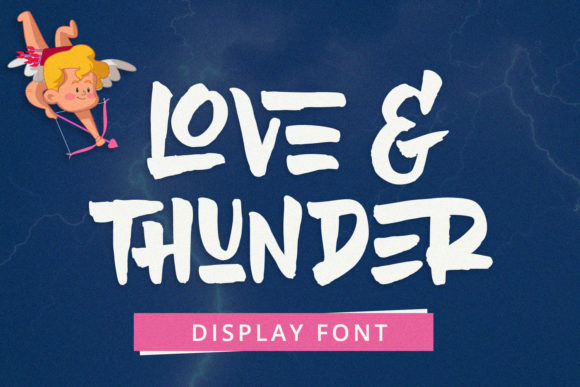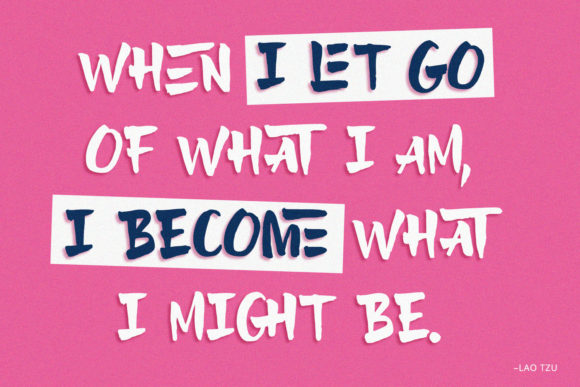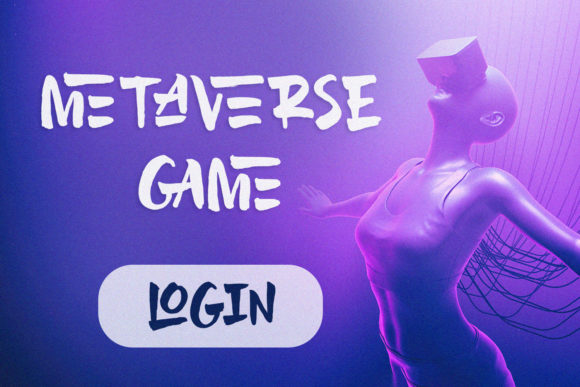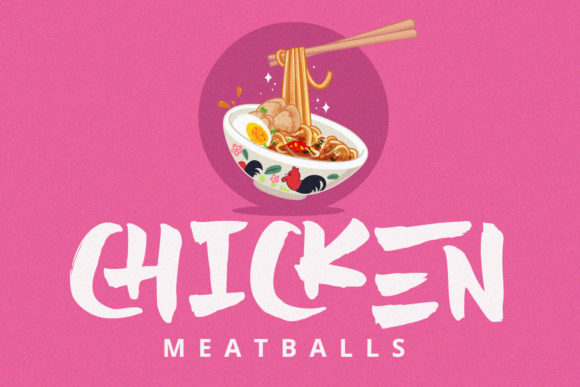
Love & Thunder Font: A Bold Display Font for Playful Logo Design
About the Love & Thunder Font
Make a bold statement with Love & Thunder Font, a powerful and memorable font. Love & Thunder is a display font with a fun and futuristic feel. It is perfect for branding, logos, marketing, social media posts, business cards, stationery, and other creative projects. This font is PUA encoded which means you can access all of the glyphs and swashes with ease!
Love & Thunder excels in headlines, short impactful statements, and logos where its futuristic energy shines. It’s ideal for tech brands, gaming projects, and youthful apparel lines. Avoid using it for body text or lengthy paragraphs; its distinctive forms are better suited to grabbing attention than ensuring readability in larger blocks of text. It also wouldn’t be suitable for UI elements requiring high legibility.
For optimal pairings, consider pairing Love & Thunder with a clean sans-serif like Open Sans for body copy or a geometric sans-serif like Futura for a more modern, streamlined feel. A classic serif like Garamond could create an interesting contrast, grounding the futuristic energy of Love & Thunder with a touch of tradition.
The font’s core personality is bold, playful, and undeniably modern. Its futuristic elements inject a sense of dynamism and innovation, making it a strong choice for brands aiming to convey a forward-thinking and energetic image.